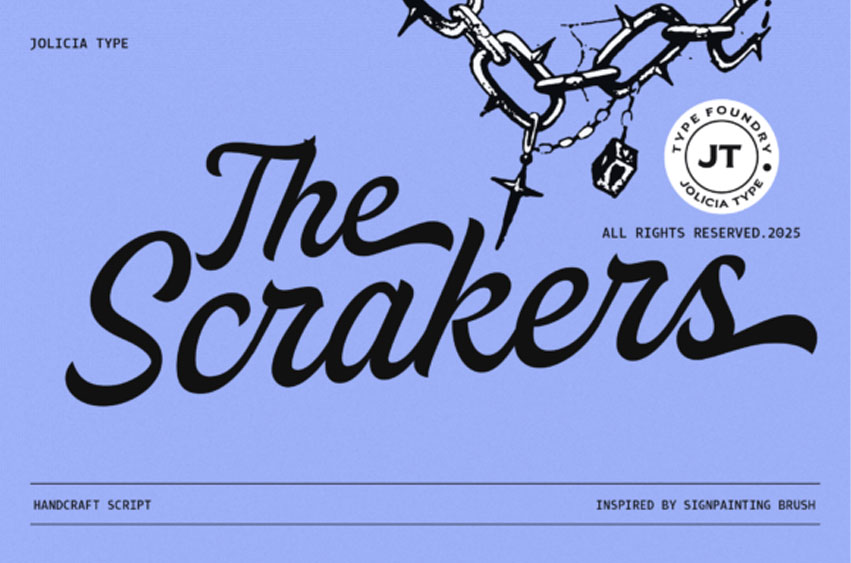
The Scrakers Font
The Scrakers Font is a bold script typeface inspired by classic sign painting brush lettering, designed to deliver strong visual impact with an authentic hand-painted feel.
The Scrakers font is a dynamic, high-energy handcrafted script inspired by the bold tradition of signpainting brush lettering. This The Scrakers typeface features a fluid, rhythmic flow with thick, confident strokes that make it ideal for retro-style logos, motorcycle branding, and edgy street-wear designs. The aggressive yet graceful slant of the Scrakers font gives your text a sense of motion and hand-drawn authenticity.
To get the most out of this font, pair it with a clean, industrial sans-serif or use it as a hero element on posters and merchandise. It is a powerful tool for any designer looking to capture a raw, artisanal aesthetic with a modern, rebellious twist.
Featuring expressive brush strokes, dynamic flow, and a confident rhythm, Scrakers is perfect for branding, logo design, packaging, posters, apparel, signage, and eye-catching headlines.
This script font includes a rich collection of OpenType features, such as stylistic alternates, contextual alternates, ligatures, and multilingual support, giving designers full creative control to craft unique and natural lettering compositions. With its extensive stylistic options, Scrakers adapts beautifully to both vintage-inspired and modern design projects.